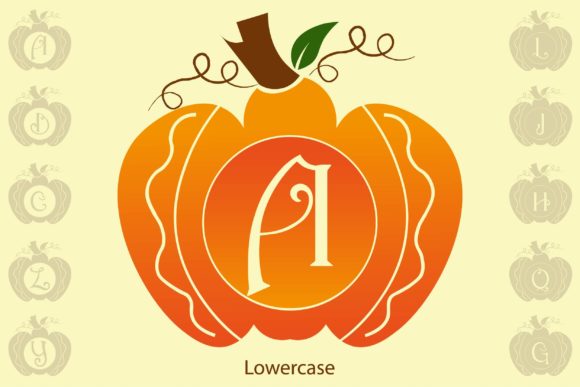
Feast your eyes upon Pumpkin Waluh Monogram, a whimsical and captivating decorative font that will ignite your creativity and transform your projects into masterpieces!
Indulge in the playful charm of this delightful font, Its enchanting curves and vibrant energy will add a touch of magic to your designs. Whether you're seeking inspiration for Instagram posts or embarking on personal calligraphy adventures, Pumpkin Waluh Monogram is the perfect companion to bring your vision to life.
Imagine your designs adorned with this captivating font, each letter a tiny work of art. Create stunning labels that exude elegance and sophistication, adding an unforgettable touch to your products. Unleash your inner artist and craft eye-catching posters that command attention, leaving a lasting impression on all who behold them.
Let Pumpkin Waluh Monogram be your creative compass, guiding you through a world of endless possibilities. It's a font that will ignite your imagination, empowering you to express yourself with confidence and flair.
Embrace the beauty of Pumpkin Waluh Monogram, and watch as your projects blossom into extraordinary creations. Its whimsical essence will captivate hearts and inspire minds, leaving an unforgettable mark on the world of design.